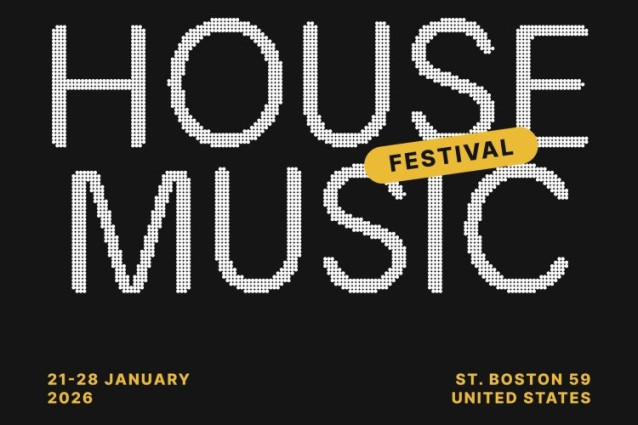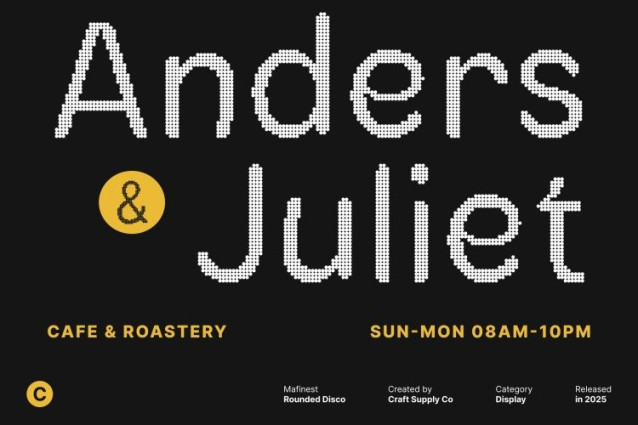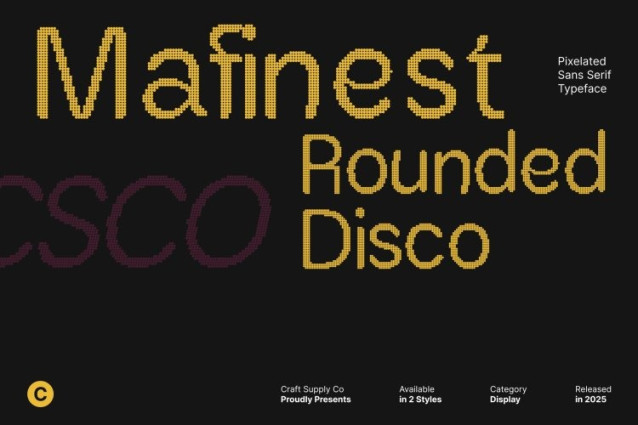
Mafinest Rounded Disco Font This is a contemporary sans serif font built on the clean structure of a modern grotesque. Its rounded shapes deliver a friendly, polished, and highly legible character, making it suitable for a wide variety of design needs. The smooth geometry supports clarity while adding a soft, approachable personality to your layouts.
Disco Effect for Sparkle and Movement
What makes truly shine is its disco-inspired effect, adding subtle sparkle, rhythm, and visual vibration to every letter. This unique texture brings a sense of motion and glamour, transforming simple text into eye-catching display elements. Whether you need shimmer, energy, or a lively twist, this stylistic layer amplifies your design with instant charisma.
Fresh, Energetic, and Eye-Catching Appeal
Designed to stand out, this font blends modern professionalism with vibrant expressiveness. Its dynamic look works beautifully for designs that need to feel youthful, bright, and engaging. The balance between clean forms and decorative effects ensures readability while still offering a bold visual statement.
Perfect for Branding, Posters, and Creative Projects
From stylish branding to event posters or social media graphics, this font adapts seamlessly to creative demands. Its modern groove and glamorous finish make it ideal for projects seeking a fresh, energetic, and eye-catching aesthetic. Use it for logos, headlines, packaging, or promotional visuals that need both polish and personality.